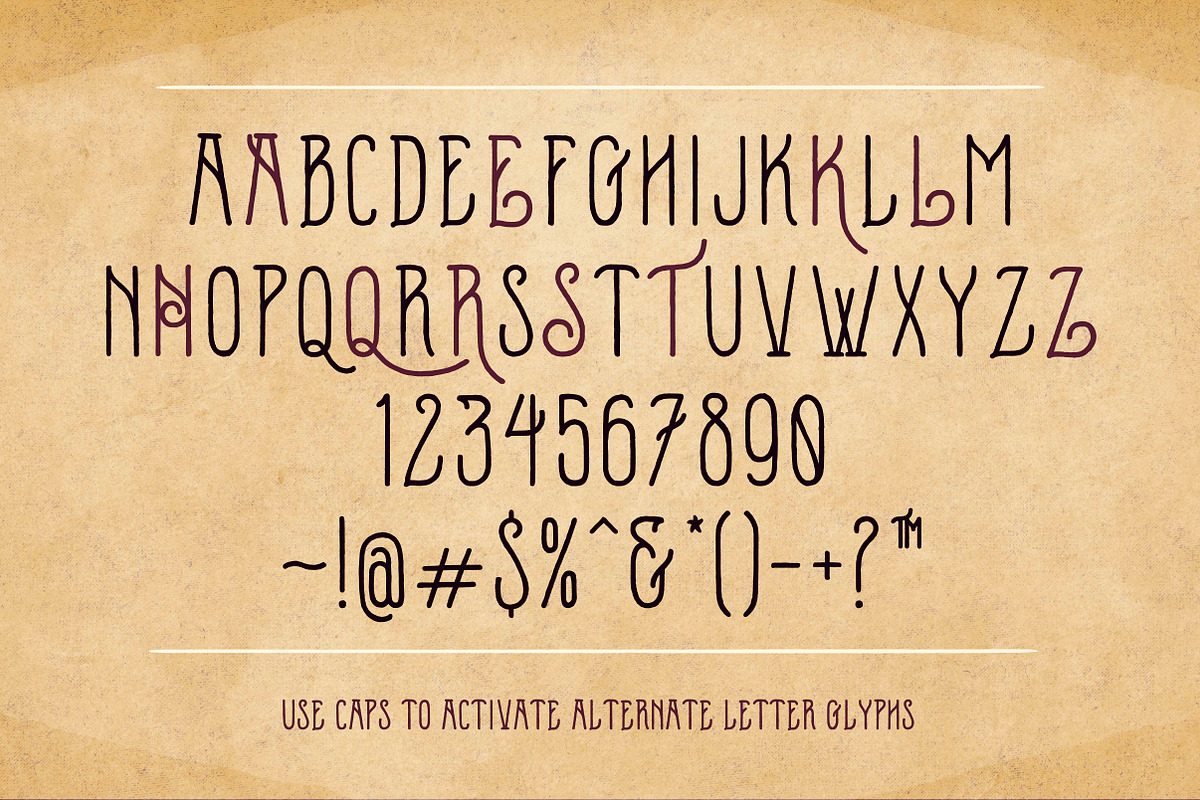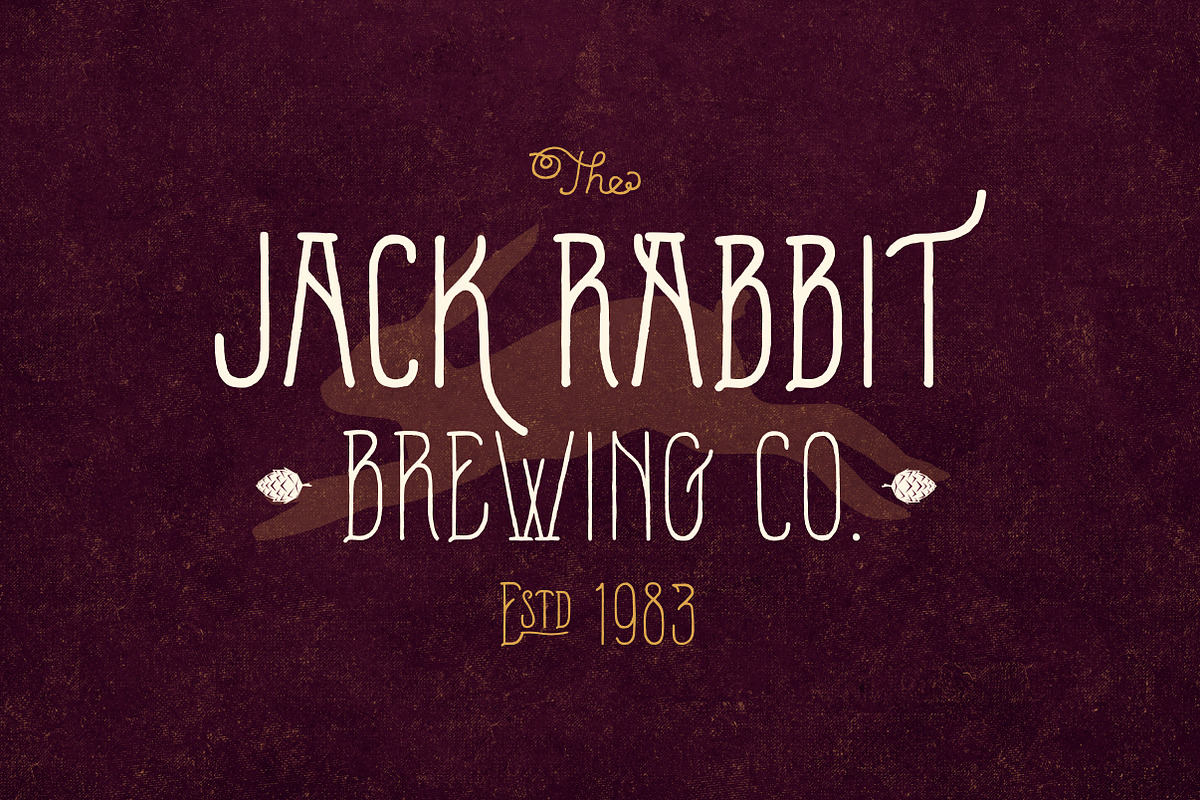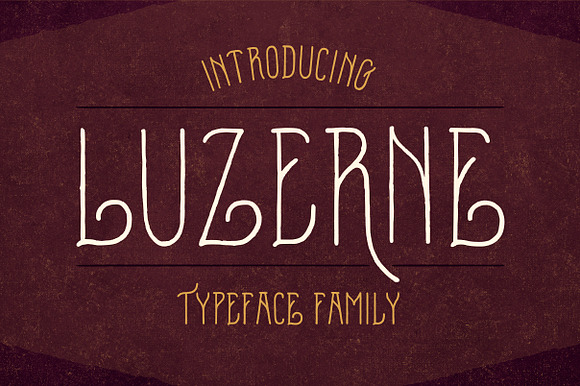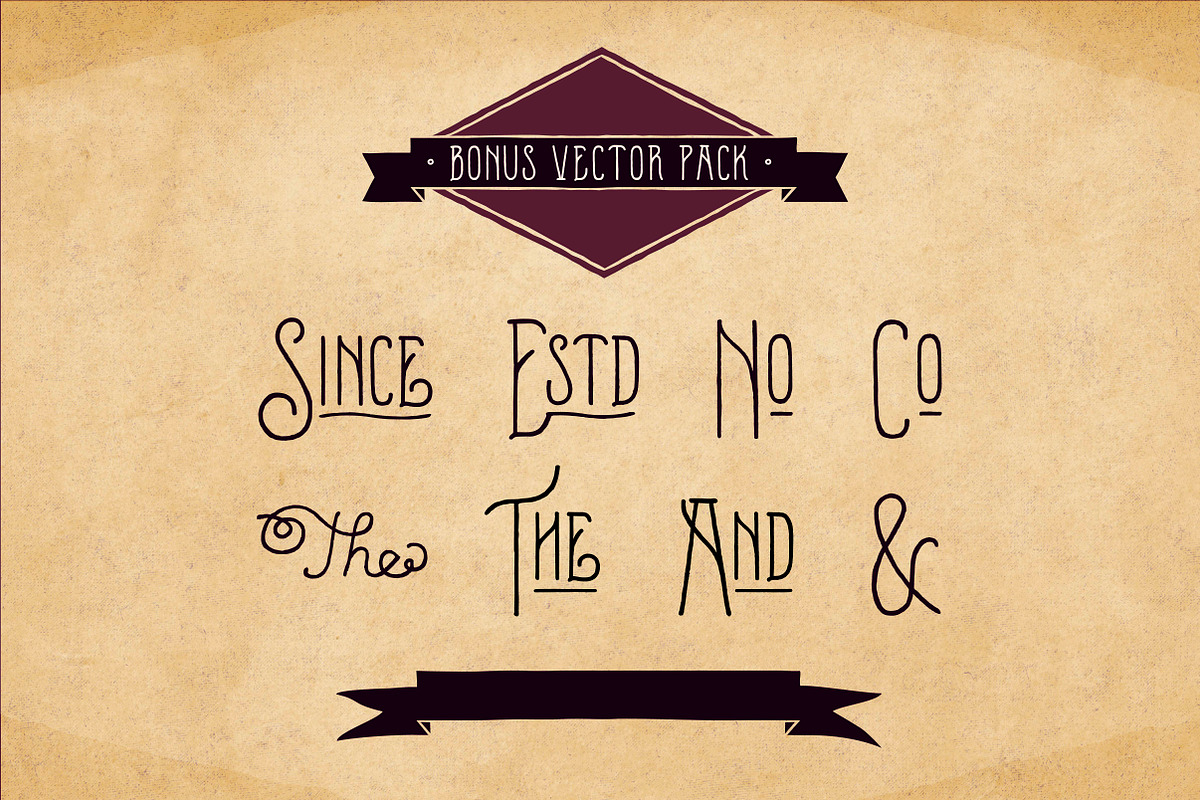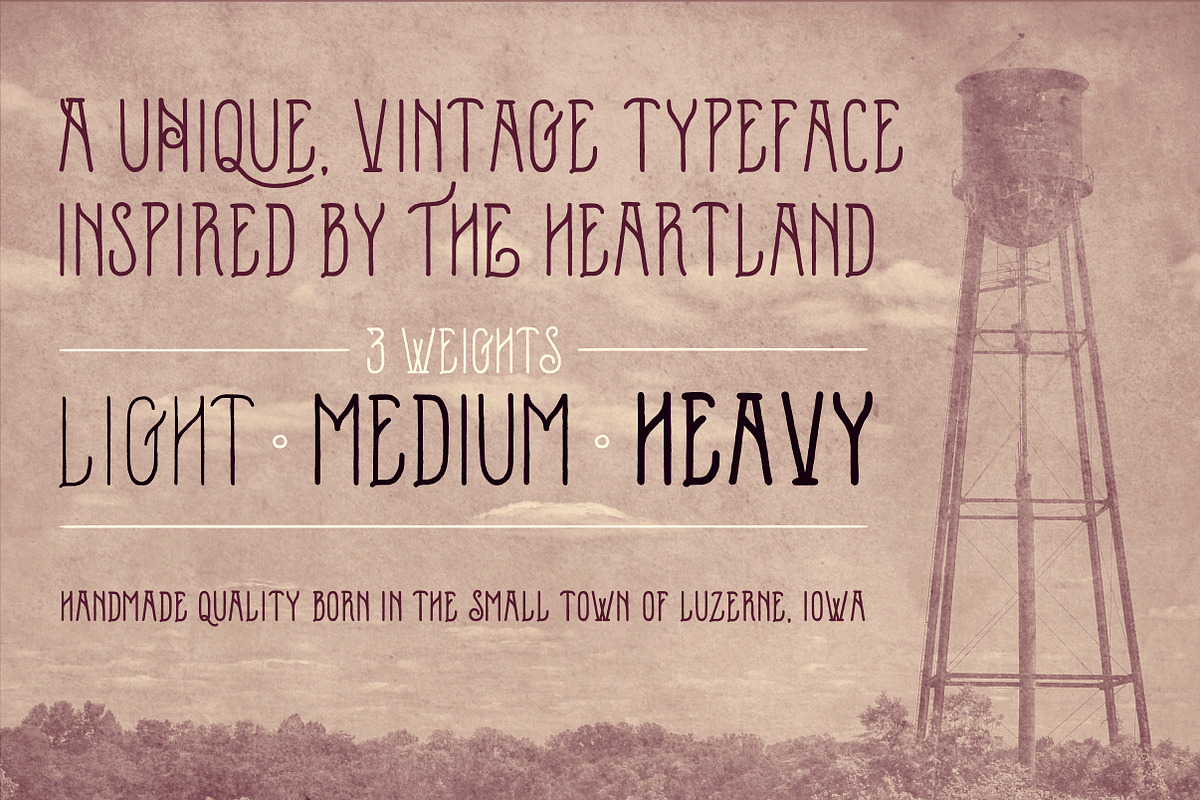
Luzerne Typeface
Luzerne is a hand drawn typeface & Doxie Design's font debut! This font is available in 3 different weights: Light, Medium & Heavy. Luzerne is perfect for logos, posters, apparel, labels & anything else you can imagine! 10 Alternate letters can be activated by using capitals to add even more unique qualities to your design. Luzerne features full punctuation along with fractions, trademark glyphs & foreign currency. Included is a BONUS vector pack to elevate your logo or identity project.